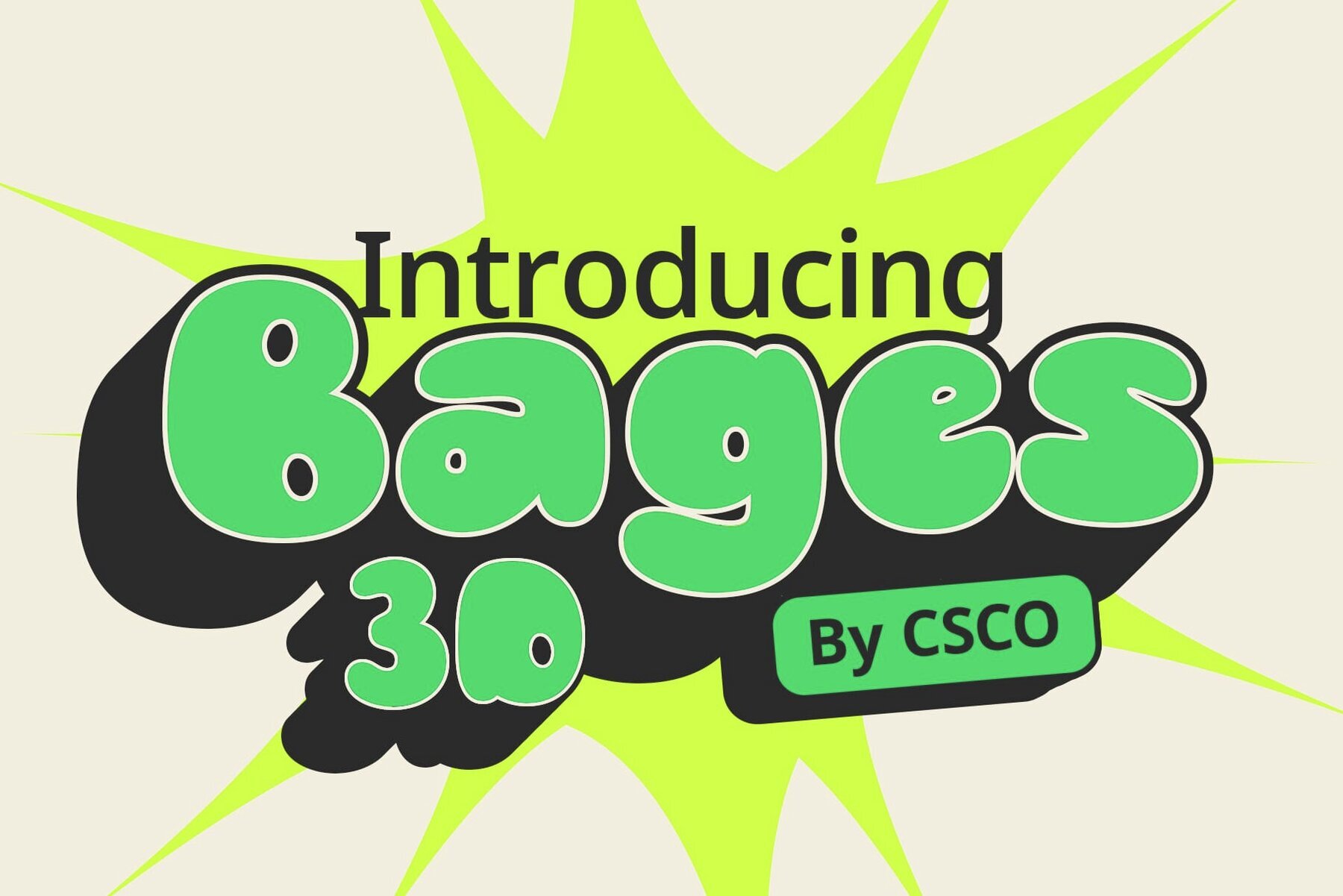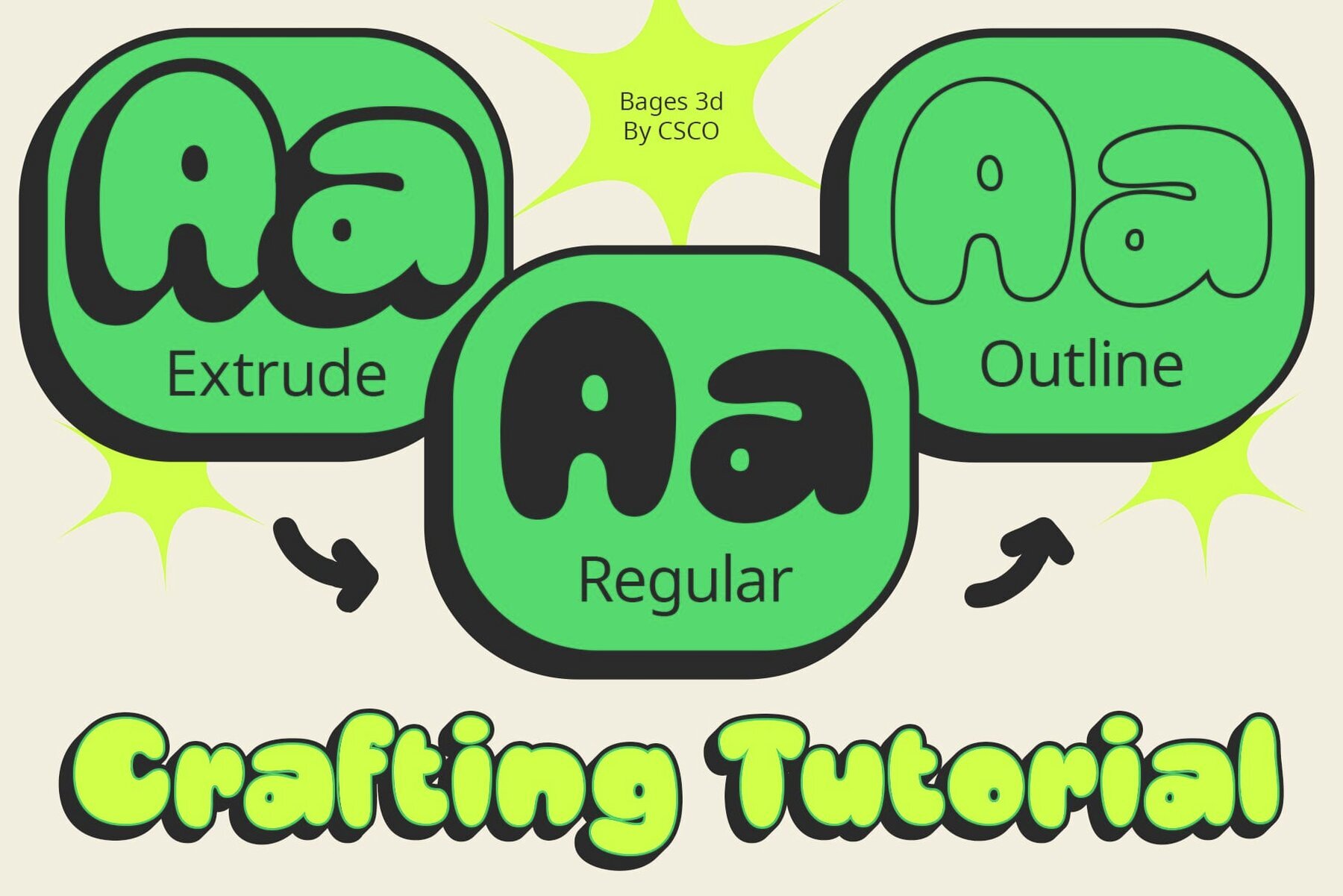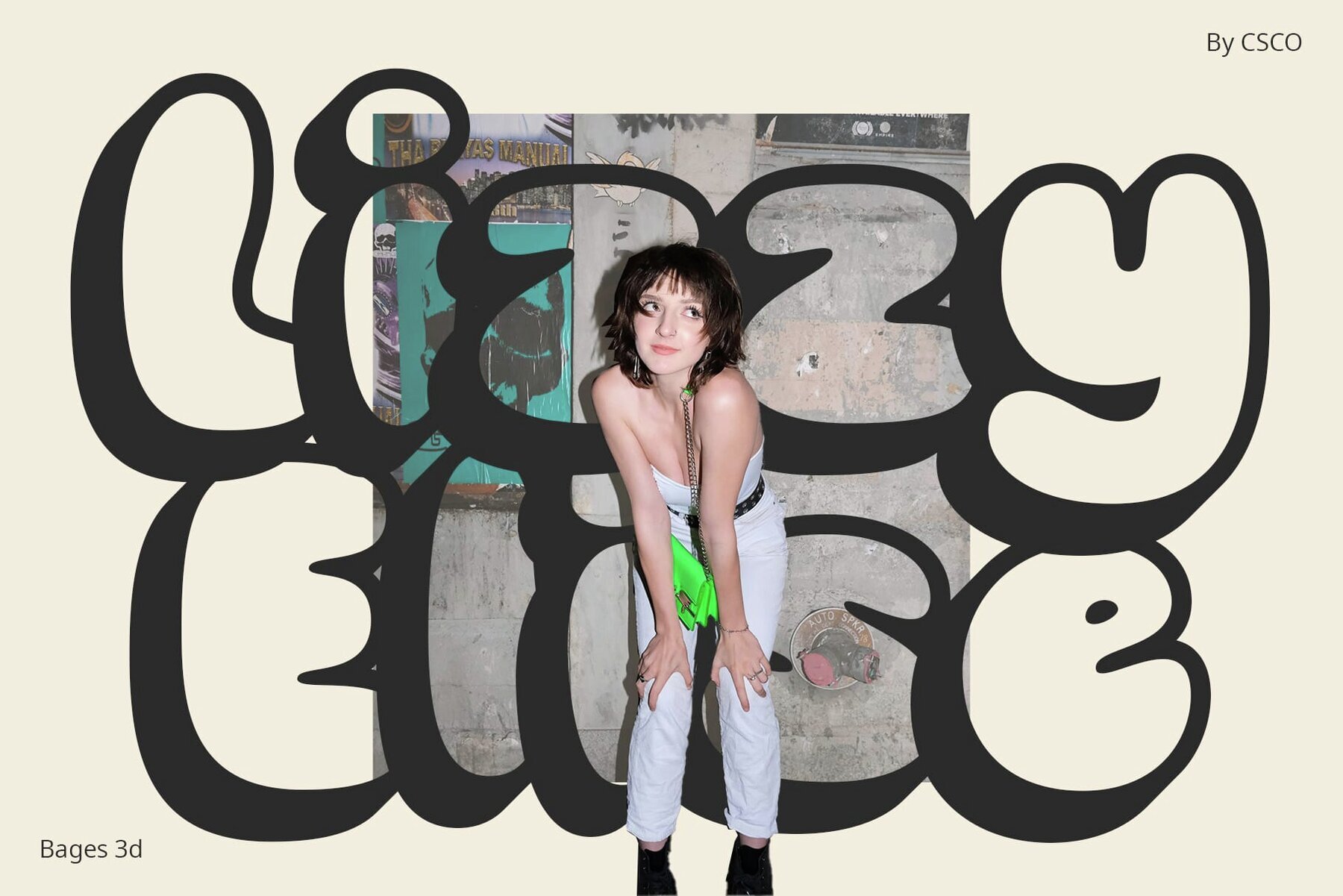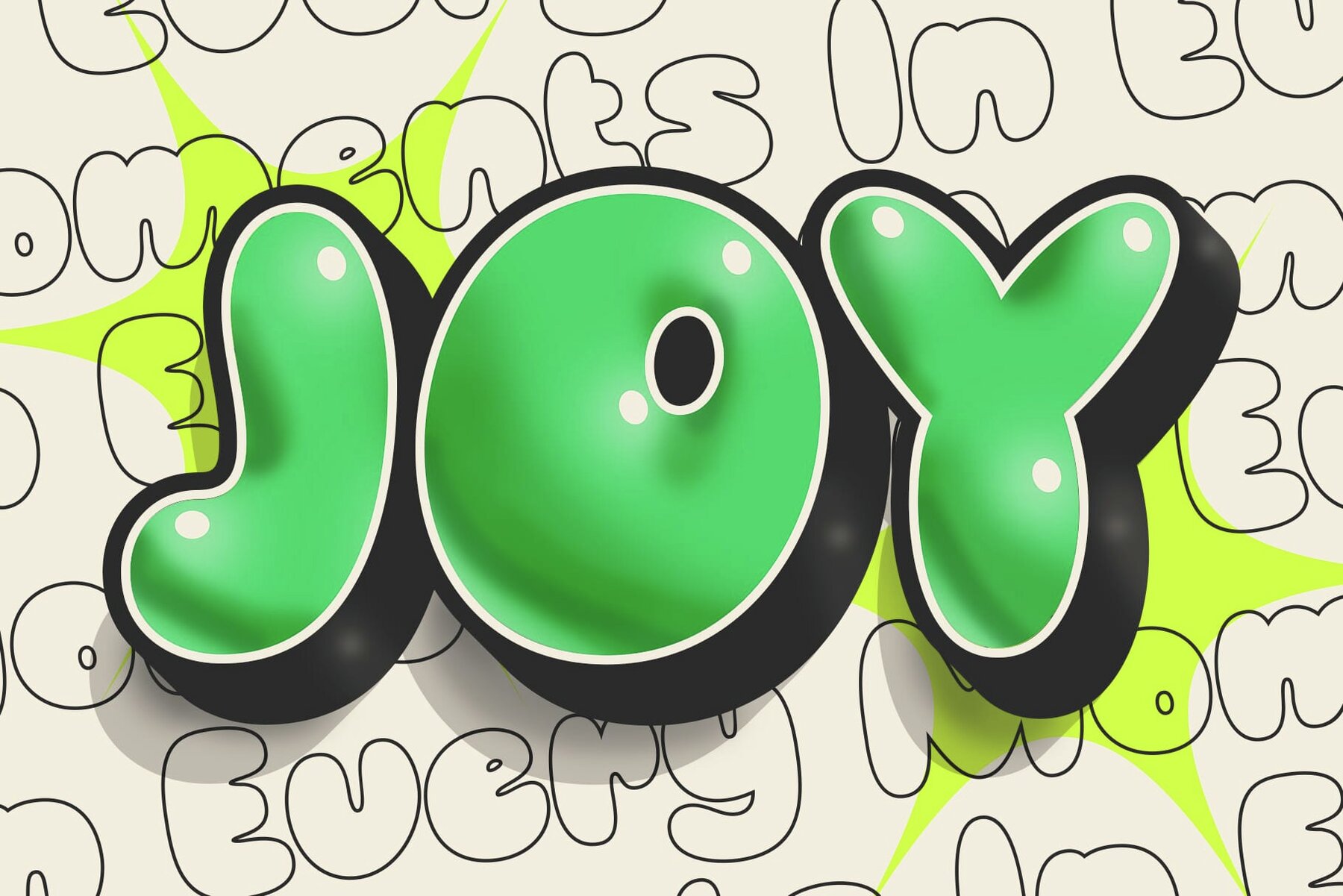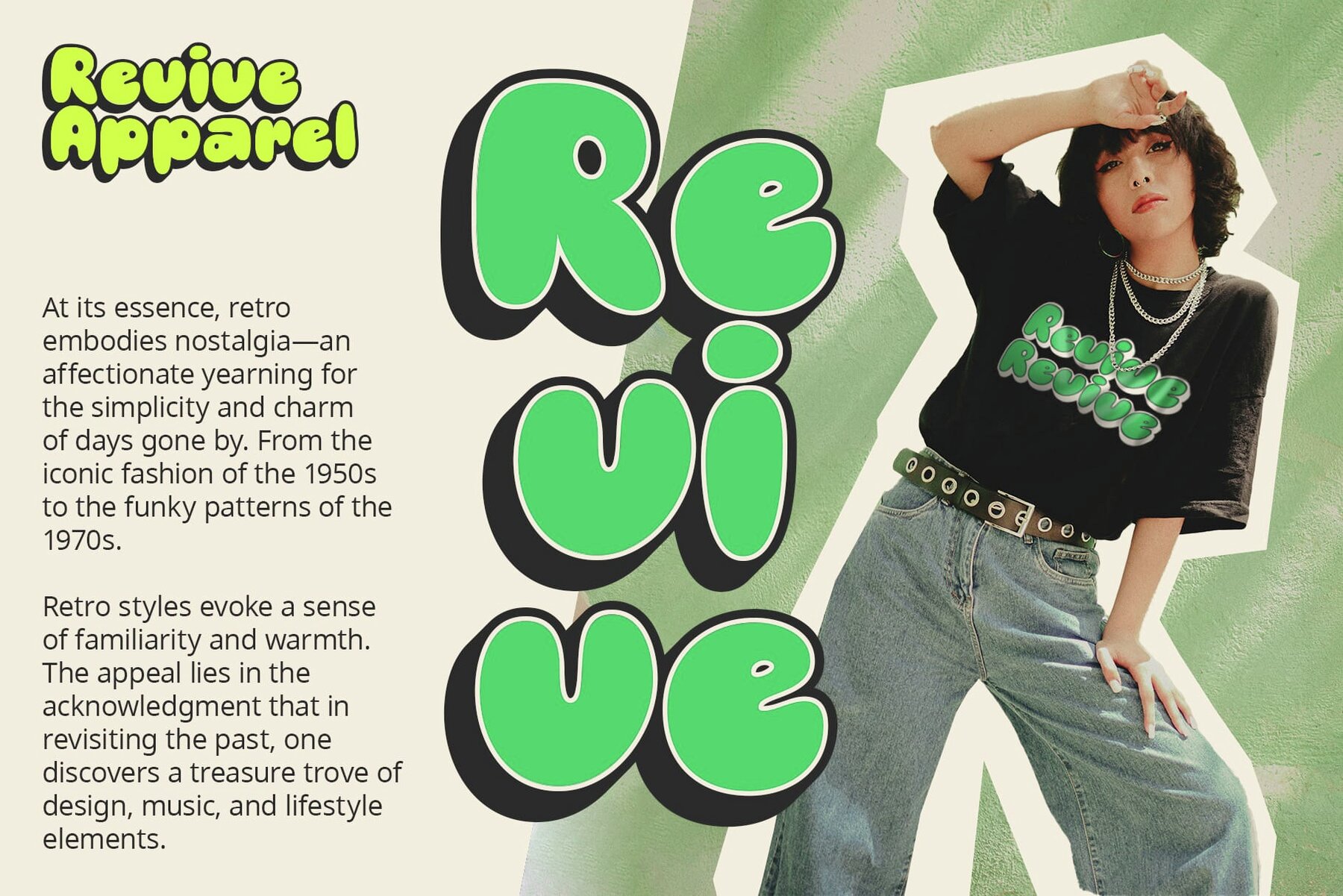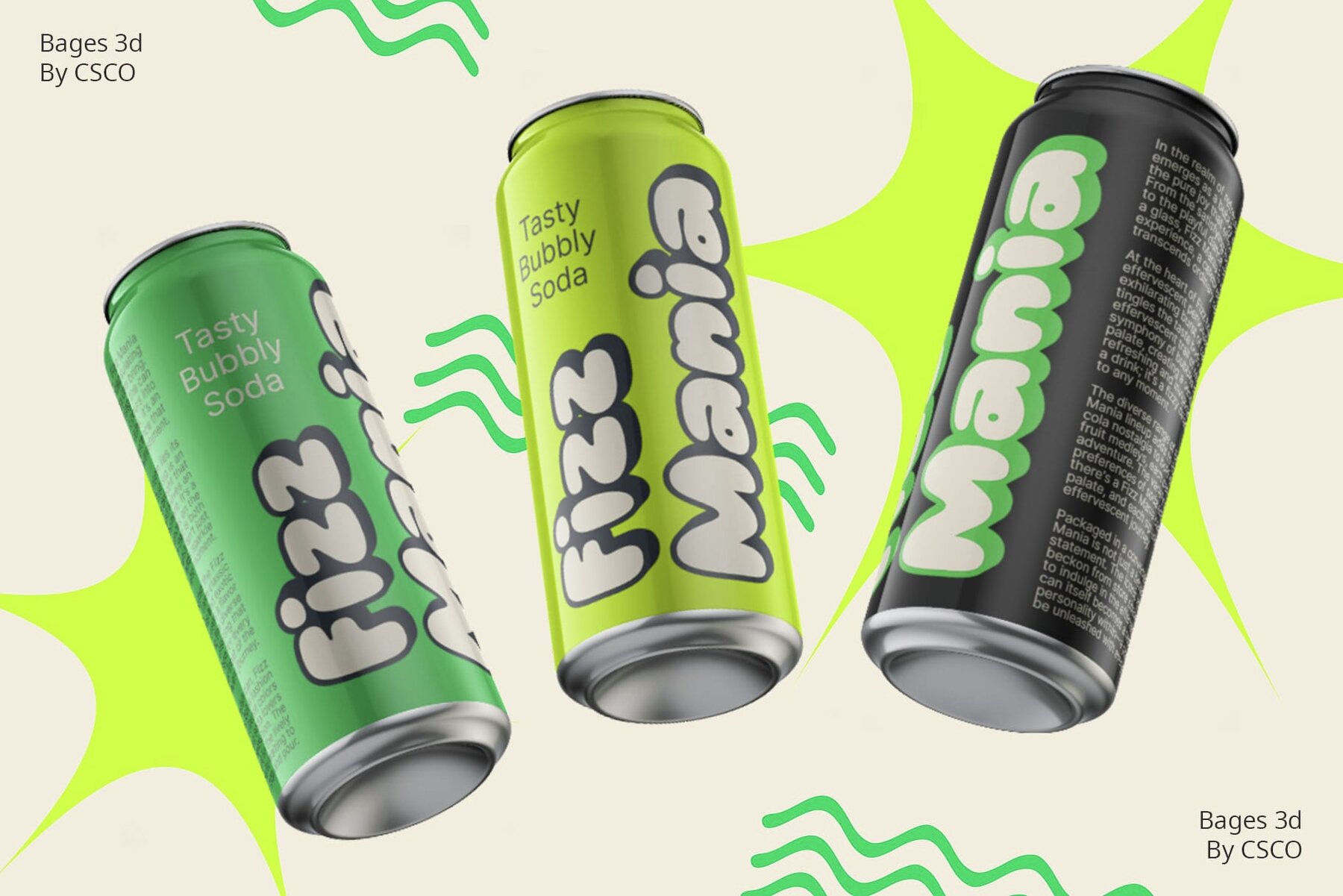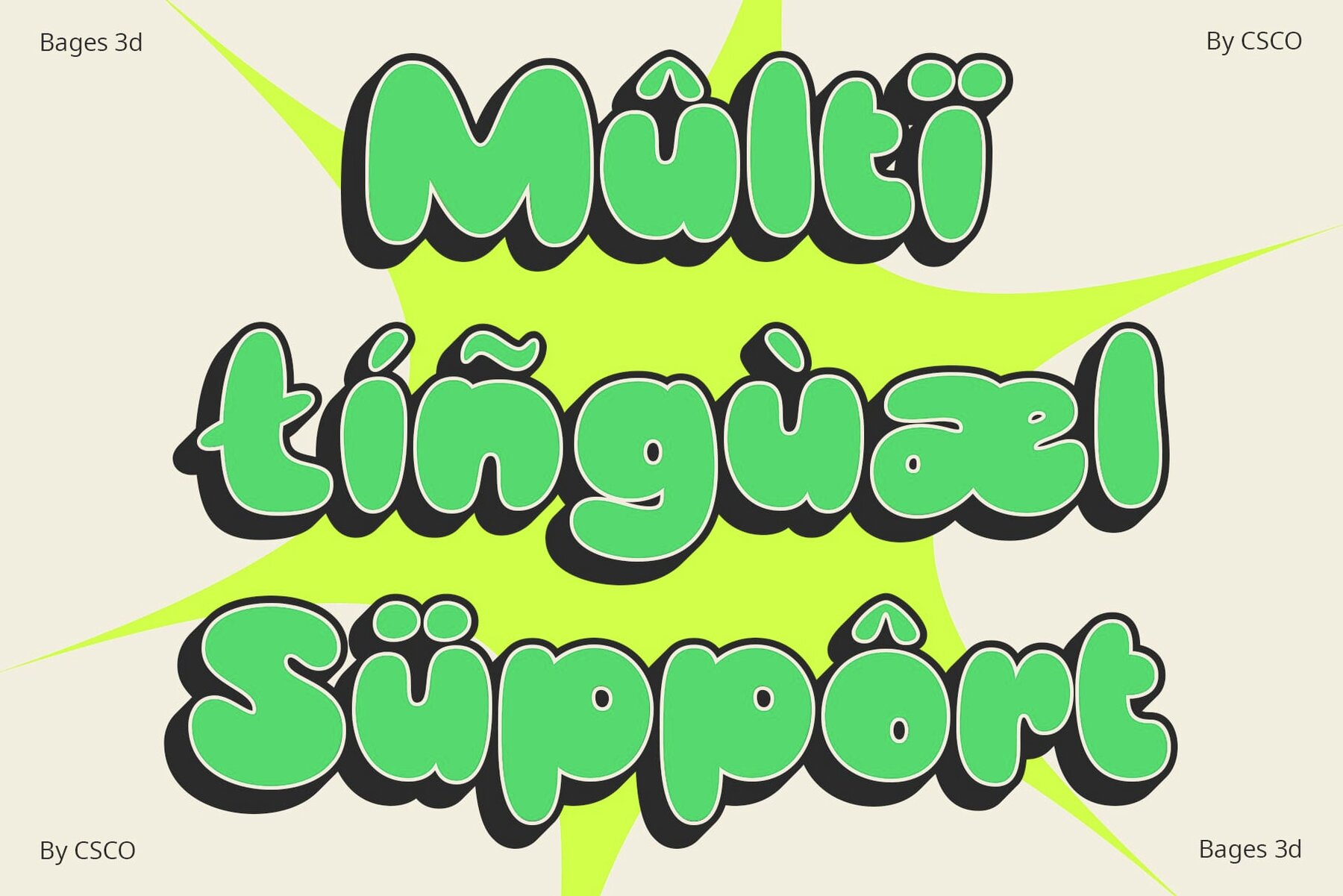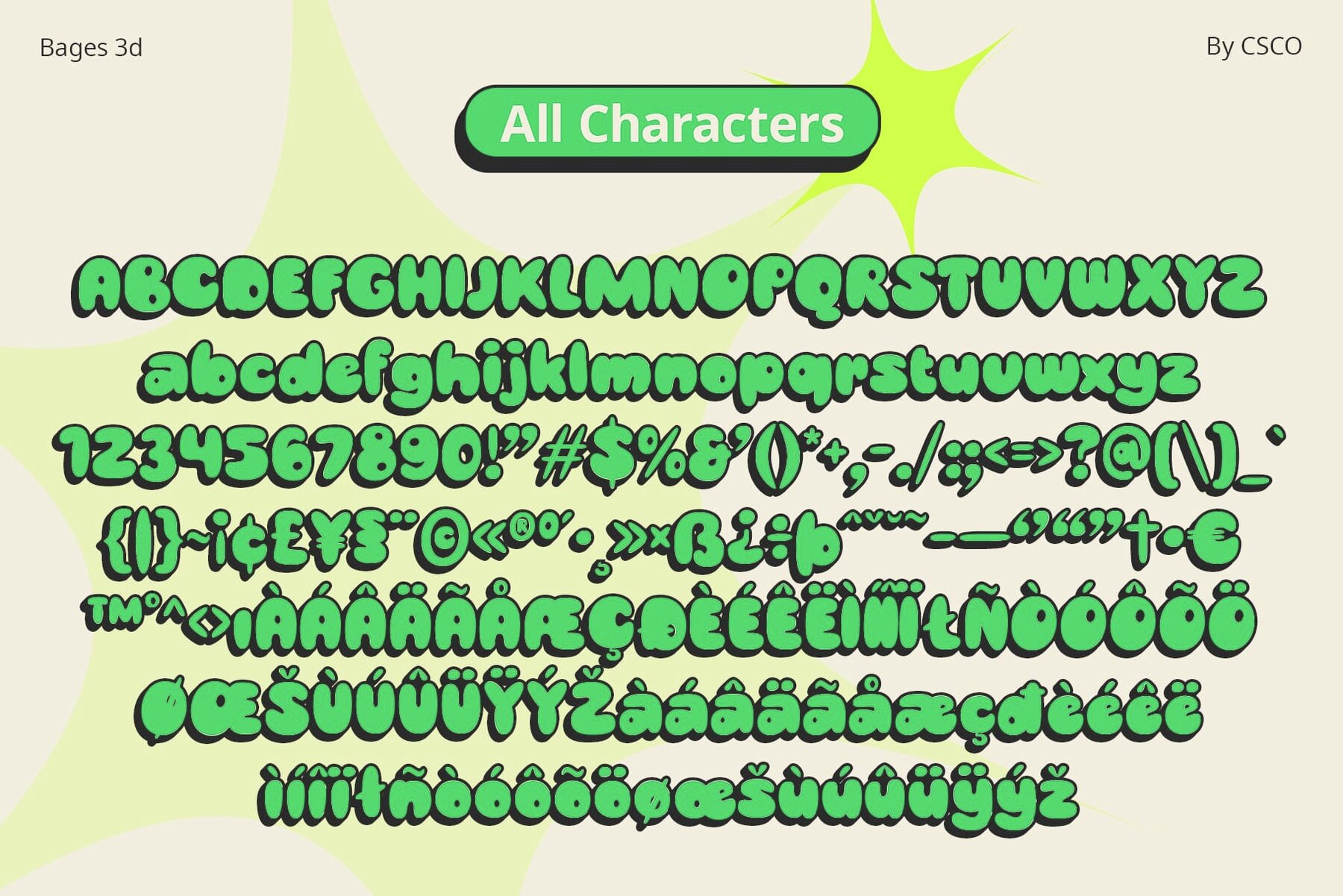
Bages 3D Font
Step into a world of whimsy with Bages 3D, a display font that captivates with its charming bubble-shaped letters. Perfect for adding a touch of cuteness to your designs, this font is irresistible with its playful aura. Experience the enchantment of Bages 3D as it brings bubbles to life with an engaging 3D effect. Each letter pops out, adding depth and a playful twist to any design project. Bages 3D balances cuteness with elegance, making it suitable for a diverse audience. Whether for children’s books or event invitations, it infuses joy into every piece. This font goes beyond whimsy, offering versatility for various design needs. From posters and banners to social media graphics, Bages 3D injects a playful spirit into your creations. Easily use this typeface without any specialized software. If you have any inquiries or need assistance, please feel free to contact us. We appreciate your support in enhancing your creative projects! Best regards, Craft Supply Co.Bages 3D Font: Whimsical Charm in Every Bubble
Bubble-Popping 3D Effect
Playful Elegance for All Ages
Versatility in Design